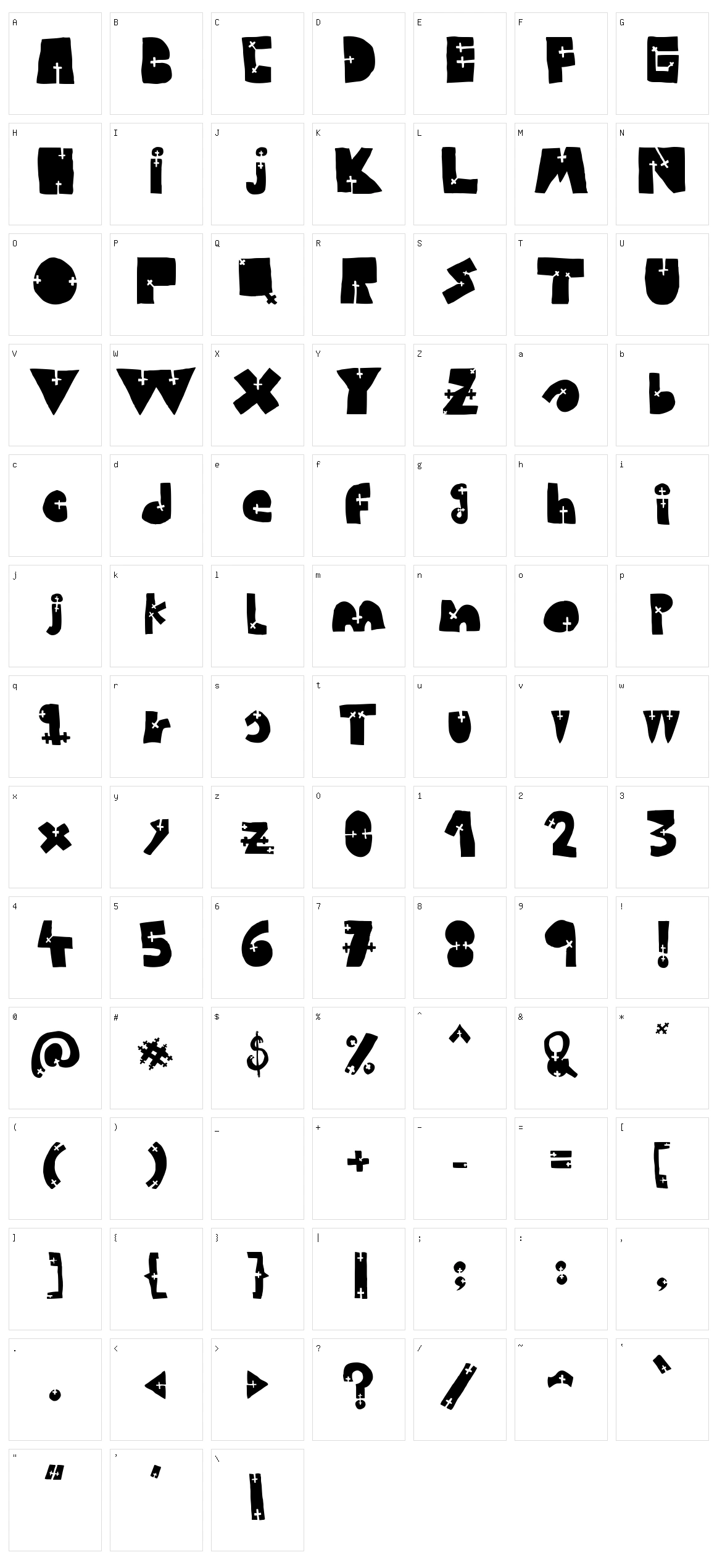
The free font Woodcutter Cross is carefully designed by Woodcutter, showcasing a thoughtful balance of creativity and usability and falls under the Cartoon font style. When you download the ZIP file, it contains only 73.07 KB of font files, making it lightweight and quick to download. Please review the license details below to understand permitted usage and distribution rights. If license information is not available, we recommend using this font for personal projects only or contacting the author directly for commercial usage permissions.